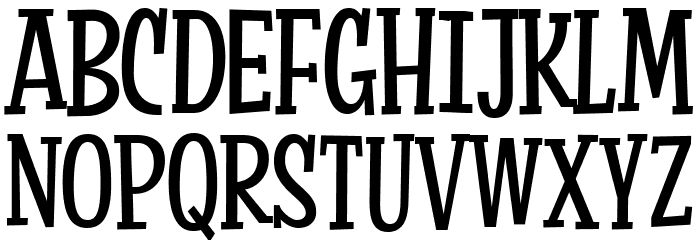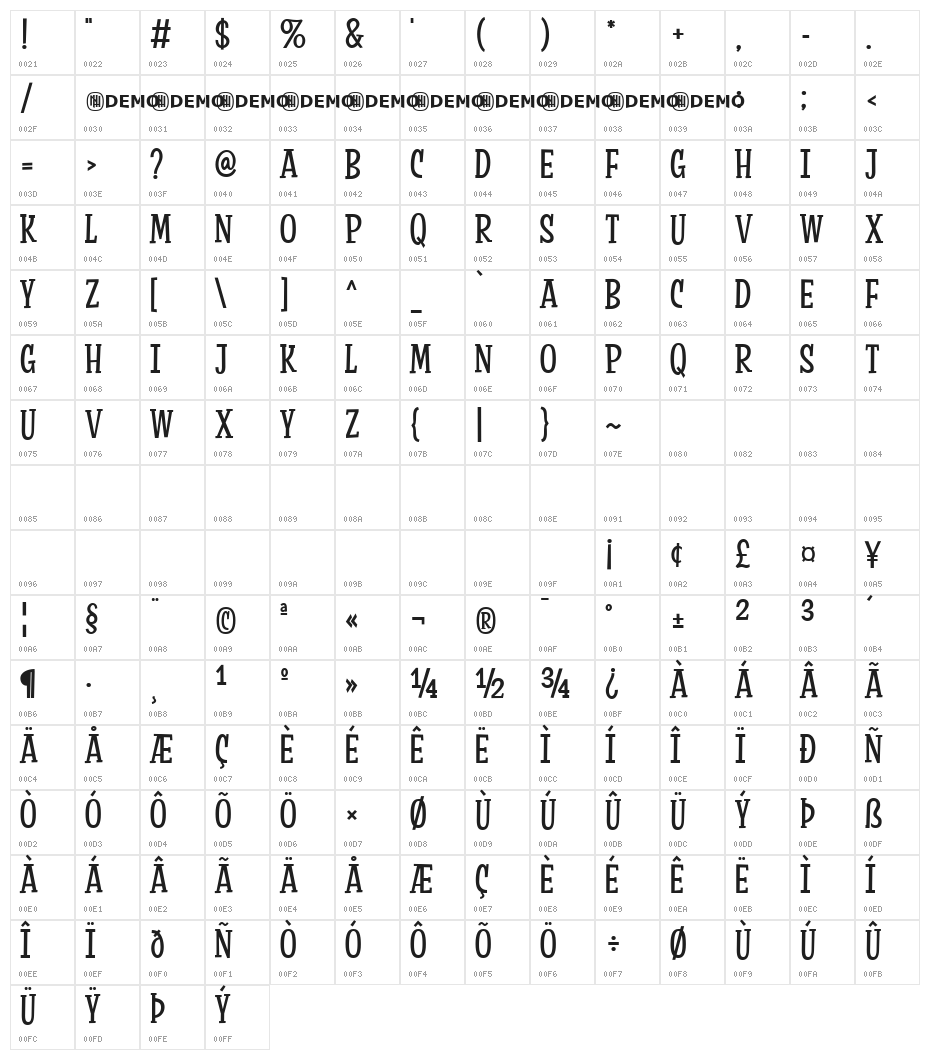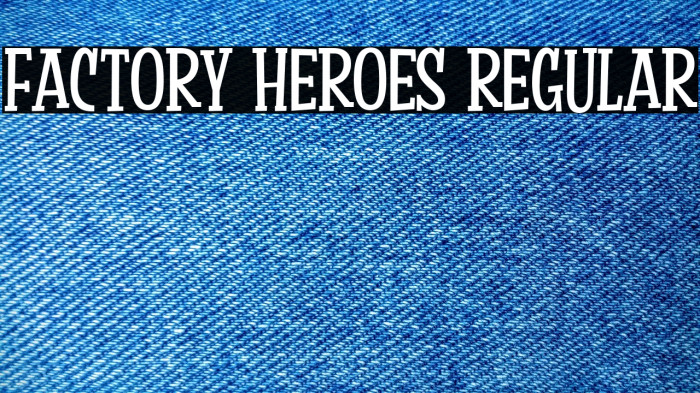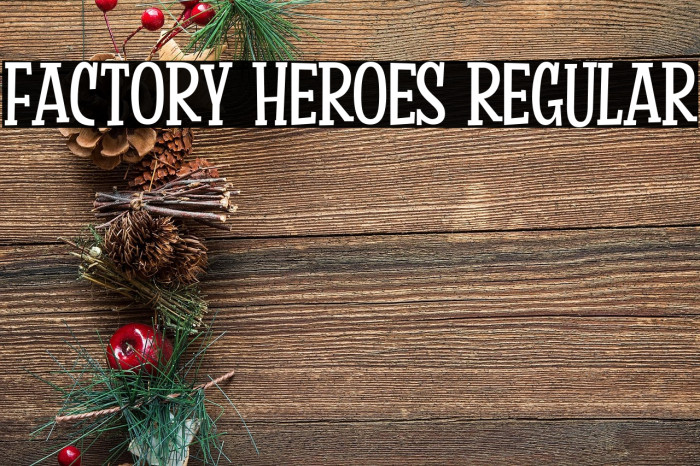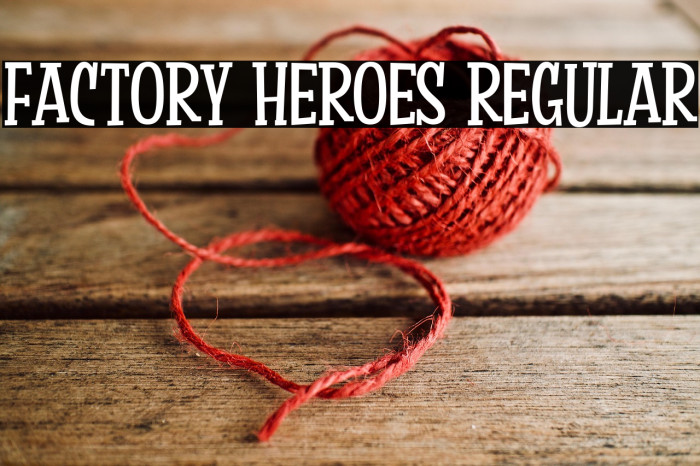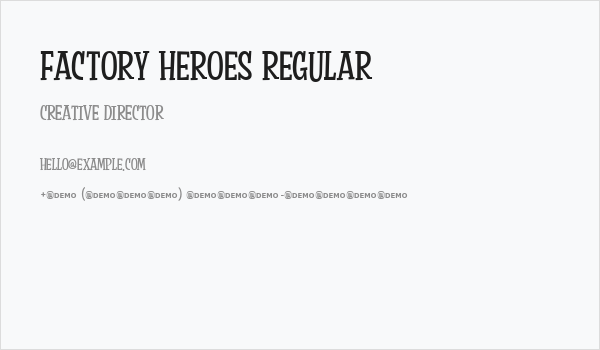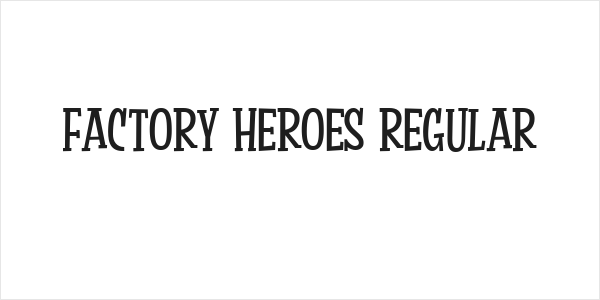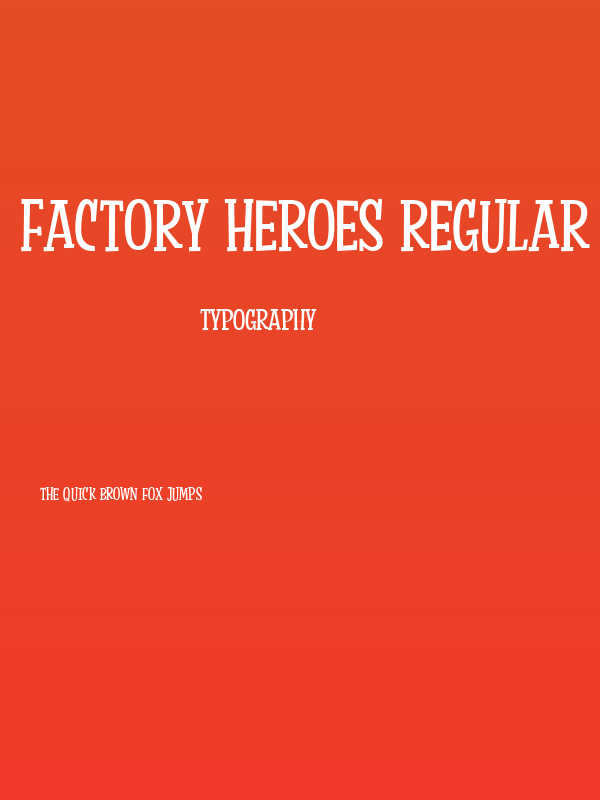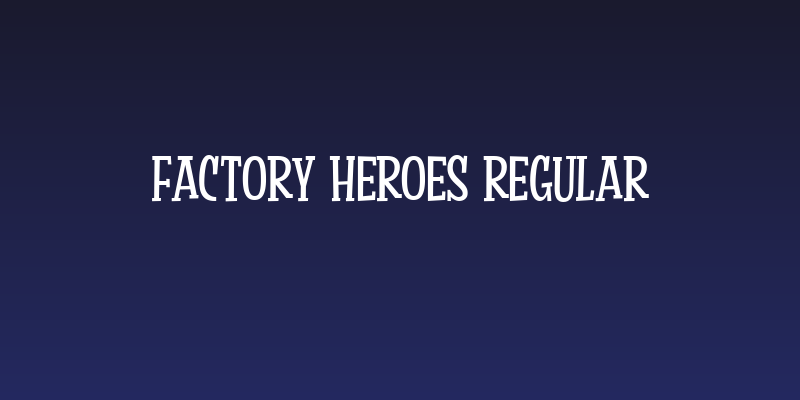
Factory Heroes Regular Font
This typeface features a bold and dynamic style with a strong presence. The characters have a slightly condensed form, giving them a compact and powerful look. The strokes are thick and consistent, providing a sense of stability and strength. The serifs are prominent, adding a touch of classic elegance to the overall design. The font maintains a high contrast between thick and thin strokes, enhancing readability and visual impact. Its design is suitable for making statements and capturing attention, making it ideal for headlines and display purposes.
A bold, high-contrast serif typeface with a strong, dynamic presence.
- Font: Factory Heroes Regular
- Proposed Projects: Ideal for use in headlines, posters, branding, and advertising where a strong and impactful statement is needed.
- Category: Serif
- Overall Style: Classic